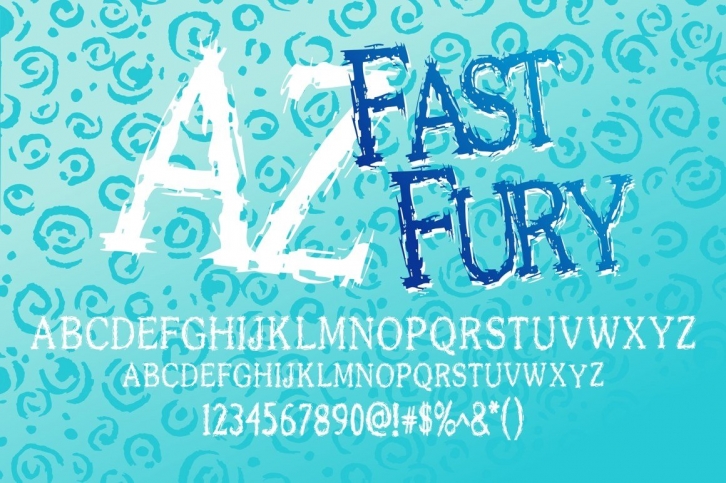
AZ Fast Fury font was inspired to have a "rough Scratched" look to some letters.
This font utilizes an "old look" to the line work which is designed to have a "worn feel" to it.
Ideal for use as headline or sub-head text in you design.